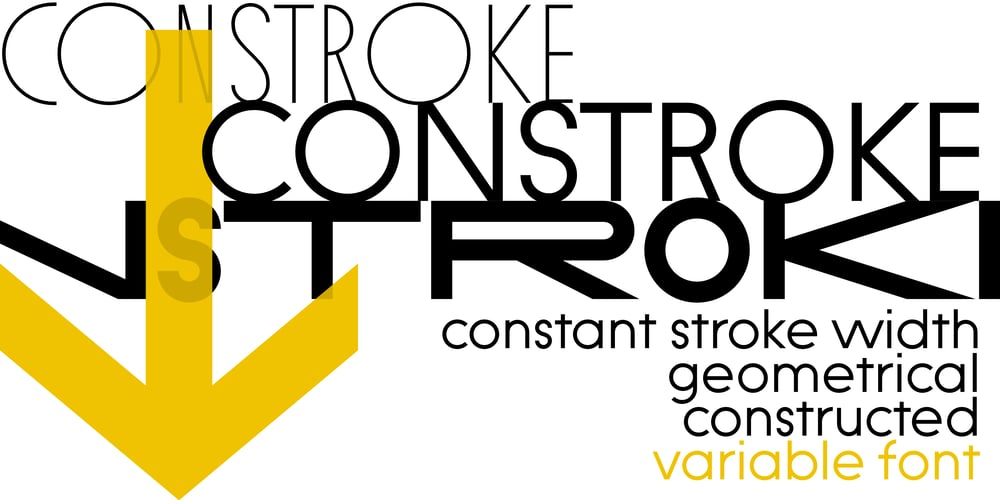
Constroke
Constroke font
Constroke Font Family was designed by Ingo Zimmermann and published by Ingo. Constroke contains 33 styles and family package options. Strictly geometrically constructed character forms with an even stroke widthThe idea behind it: to construct letters according to geometric principles — without correcting the inevitable optical imbalances and unsightly thickening. The round shapes are really circular too.The main feature of the Constroke is the constant stroke width. Another typical feature of almost all geometric fonts is the round small a.Many characters are also available as stylistic alternates. This gives the font a completely different look.A total of 7 style sets and unusual ligatures invite you to play with alternate forms.Constroke also includes tabular figures, circled numerals and directional arrows.